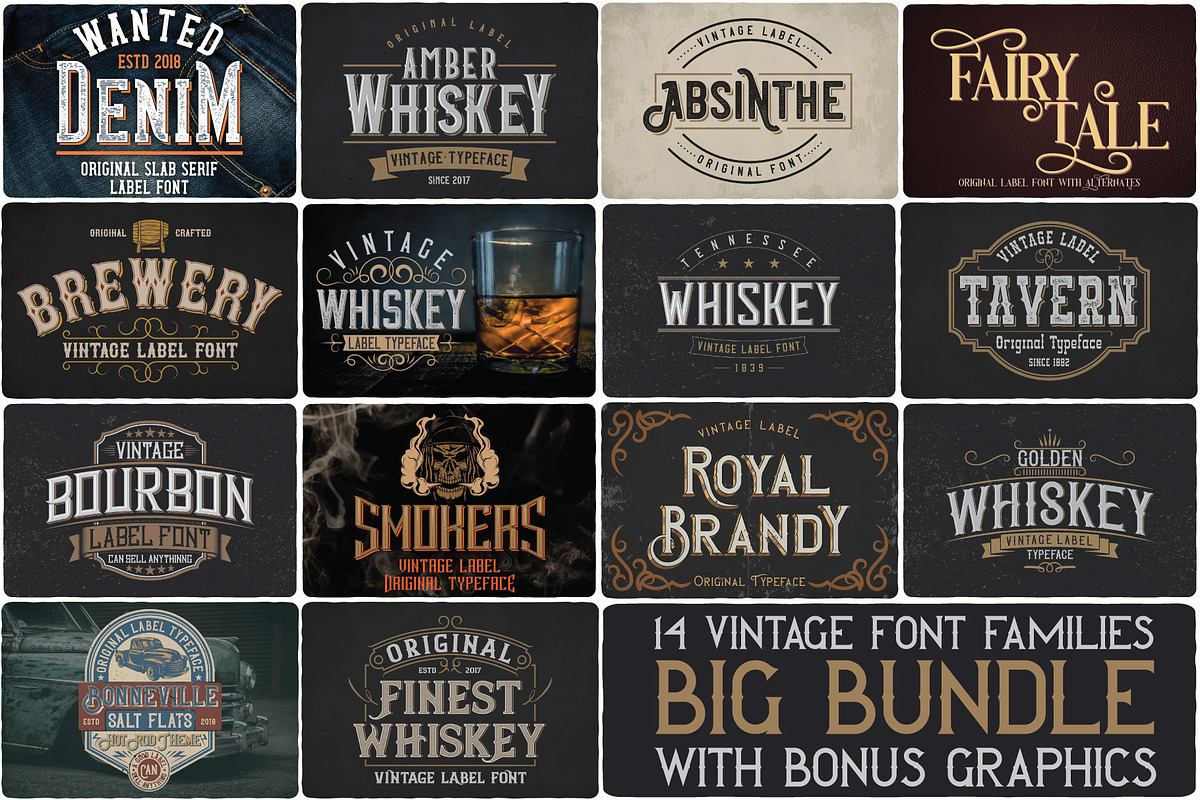
Big Bundle - 14 fonts Free Download
Big Bundle - 14 Fonts Free Download
Packed with variety and endless possibilities, Big Bundle - 14 Fonts Free Download is a collection of 14 premium fonts that cover a range of styles—from elegant scripts to bold display typefaces, and everything in between. Perfect for any creative project, this bundle includes fonts ideal for logos, branding, posters, social media graphics, websites, and more.
Whether you're looking for something sleek and modern, vintage-inspired, or playful and quirky, this bundle has it all. Each font in the collection has been carefully crafted to provide both versatility and visual impact for professional design work.